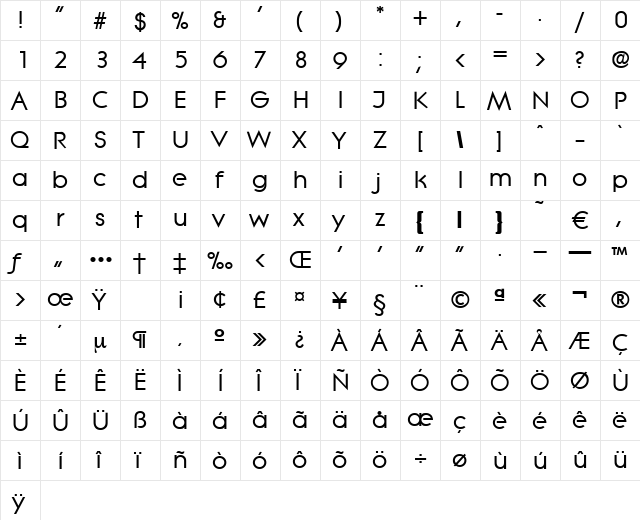
Litera-Bold Regular
Design Context for Litera-Bold Typeface
Litera-Bold takes a measured approach to typography — its balanced proportions and neutral character make it a reliable workhorse for both digital and print work. The heavy weight commands attention and anchors typographic hierarchies.